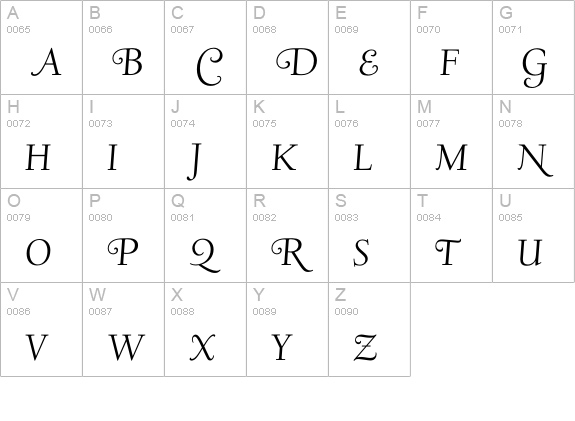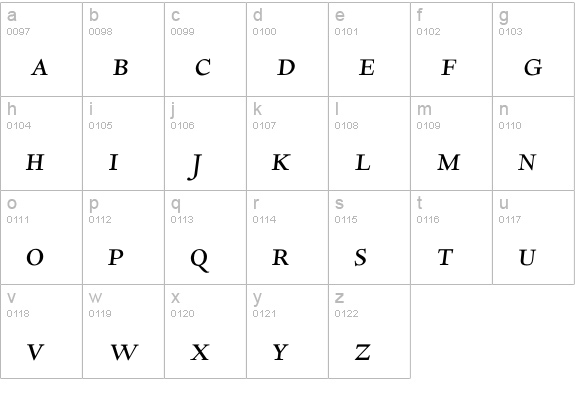
DeepdeneHW-SC-Italic Font Details
DeepdeneHW-SC-Italic is a distinctive, italic variant in the DeepdeneHW typeface family \xE2\x80\x94 well suited to design and typography projects.
DeepdeneHW-SC-Italic is a stunning and elegant font that exudes sophistication and style. With its sleek italic design, this font adds a touch of luxury to any project. Whether you are creating invitations, branding materials, or website designs, DeepdeneHW-SC-Italic will elevate your work to the next level. The gracefully slanted letters of DeepdeneHW-SC-Italic make it perfect for adding a touch of flair to your projects while maintaining readability and professionalism. This font is versatile and can be used for a variety of design purposes, making it a valuable addition to any designer's toolkit. Best of all, DeepdeneHW-SC-Italic is available for free download at FontsMarket.com. This means you can access this beautiful font without any cost, making it an accessible and budget-friendly option for your creative projects. Don't miss out on the opportunity to enhance your designs with the timeless elegance of DeepdeneHW-SC-Italic.